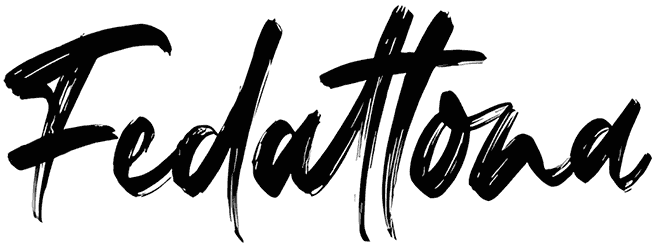
Fedattona Font
Let’s talk about a modern yet uncommon look for designing an artistic project. Fedattona is a brush font with two versions that can induce an urban mood in texts. As a manual font with all characters, Fedattona is an interesting item to show a lot of projects, for instance, flyers, social media posts, illustrations, and others the same.